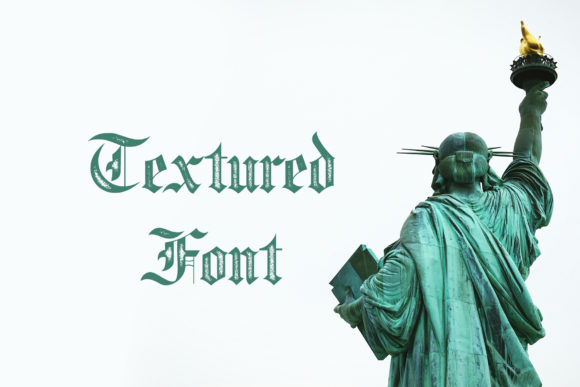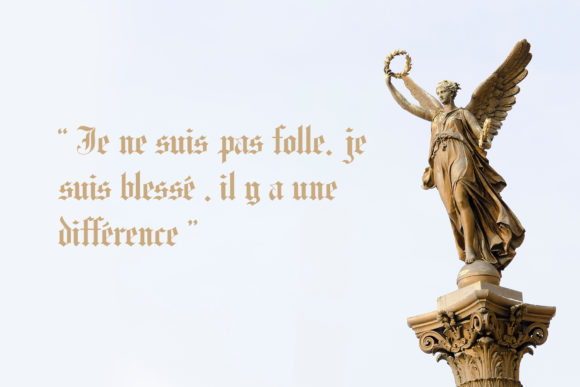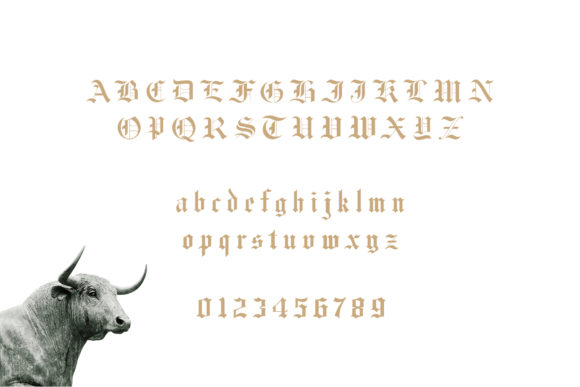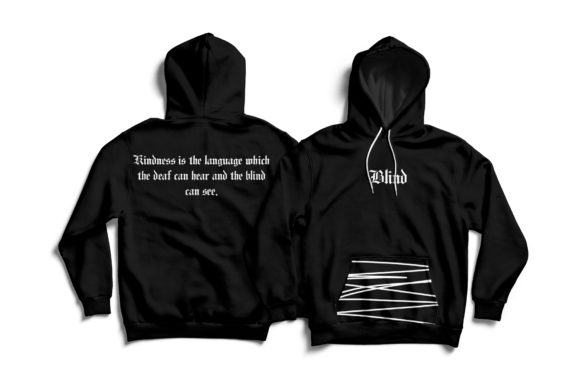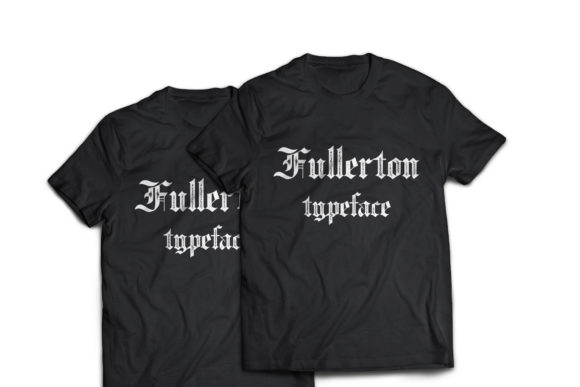
About Fullerton Font
The Fullerton is a striking blackletter font. It was inspired by the sub text of books. It’s unique style is perfect for logos, posters, magazines, books, and every other design which needs to stand out.